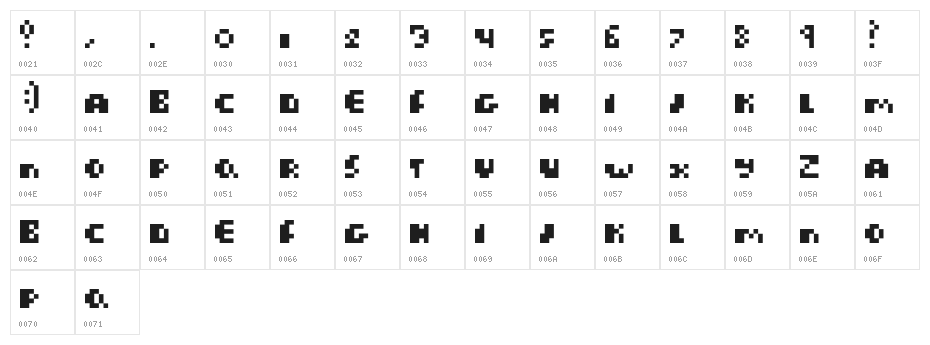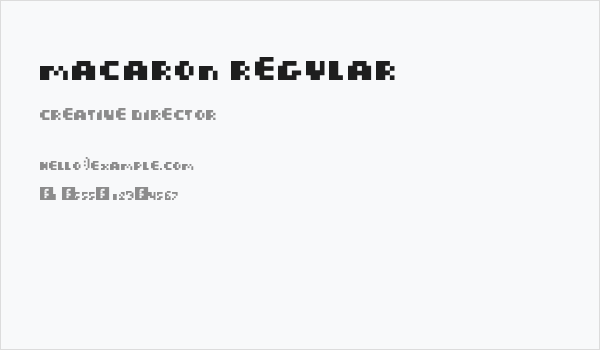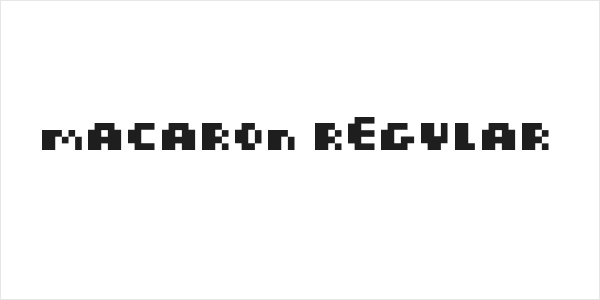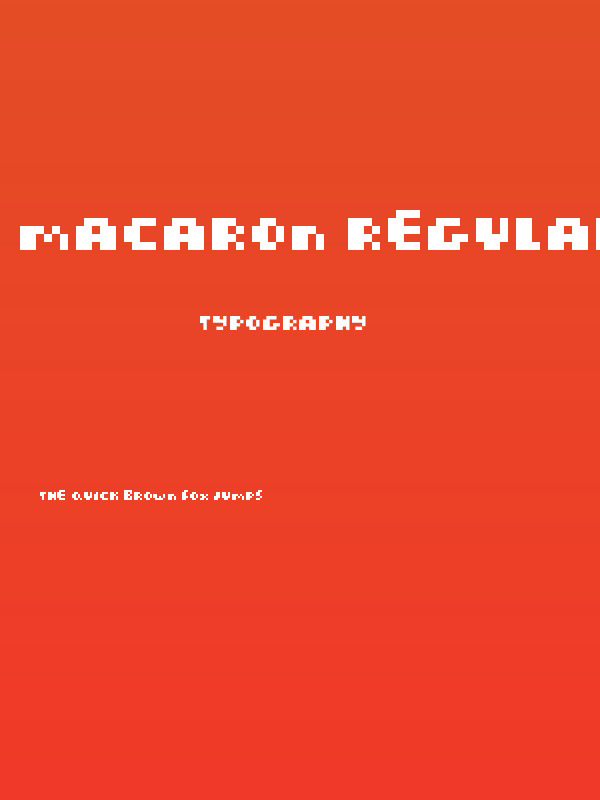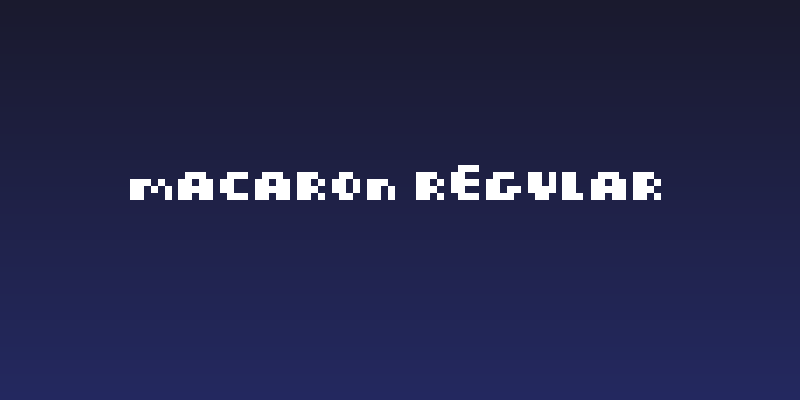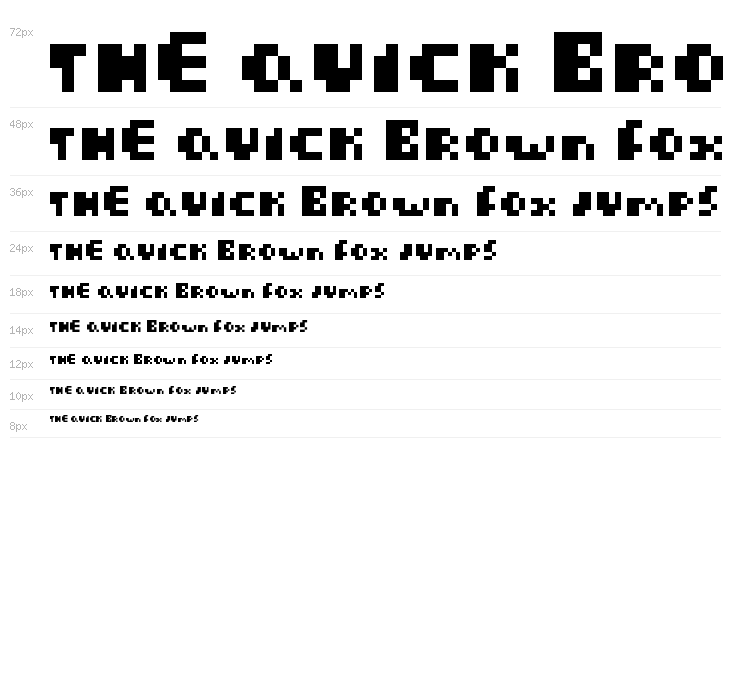
macaron Regular Font
macaron Regular Description
This font features a bold, pixelated style reminiscent of early digital typography. Each character is constructed with a blocky, square design, giving it a distinctly retro and digital appearance. The uniformity in stroke width across all characters contributes to a cohesive and structured look. The uppercase and lowercase letters maintain a consistent height, enhancing the geometric feel. Numbers and special characters follow the same pixelated pattern, ensuring visual harmony throughout the typeface. This font's unique style makes it ideal for projects that aim to evoke nostalgia or a digital, tech-inspired aesthetic.
| Overall Style | Retro, Digital |
| Use Case | Logos, Headlines, Posters |
| Proposed Projects | Ideal for video game design, tech-themed posters, retro digital art, and any project seeking a nostalgic digital look. |